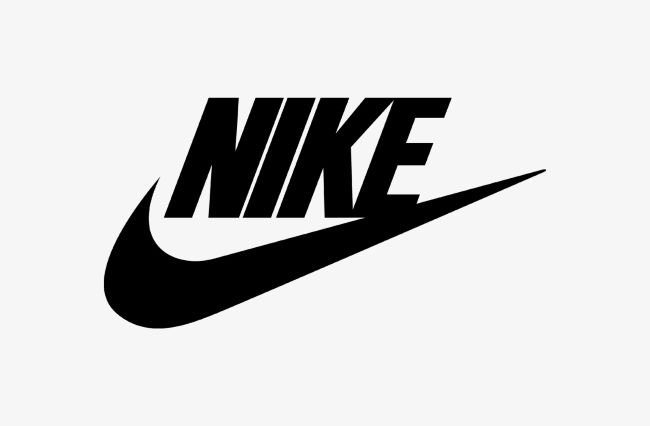
Nike font achieves something very few brand typefaces ever manage: it has become as motivating as the product itself. The logo lettering is Futura Bold Condensed — Paul Renner’s 1927 geometric masterpiece given its most athletic application — its compressed, forward-thrusting proportions communicating speed and determination with the same efficiency as the Swoosh beside it. The combination of a logotype that looks like it’s already moving and a symbol that looks like motion itself created one of the most kinetically charged visual identities in commercial history. The freely available Nike Futura Font package gives designers access to this iconic condensed geometric system.